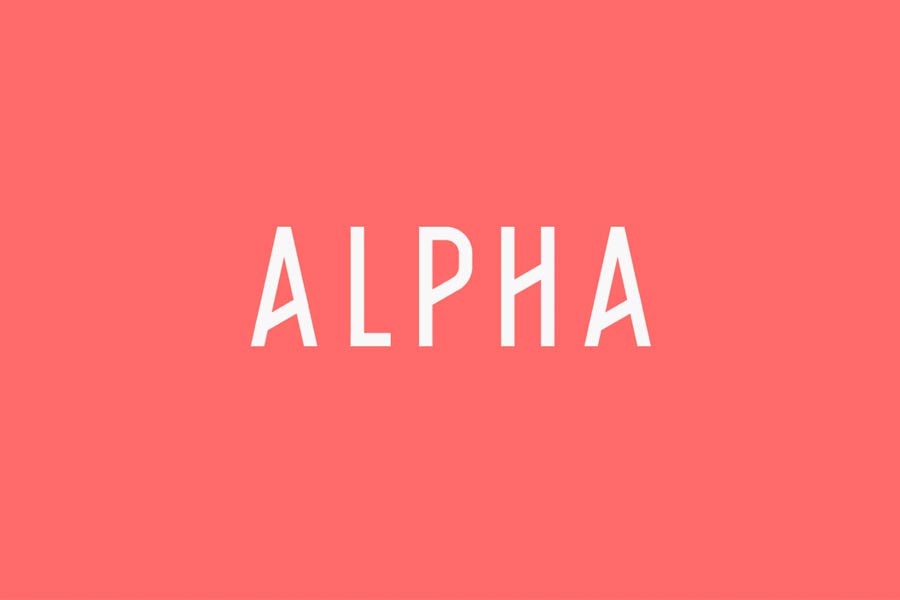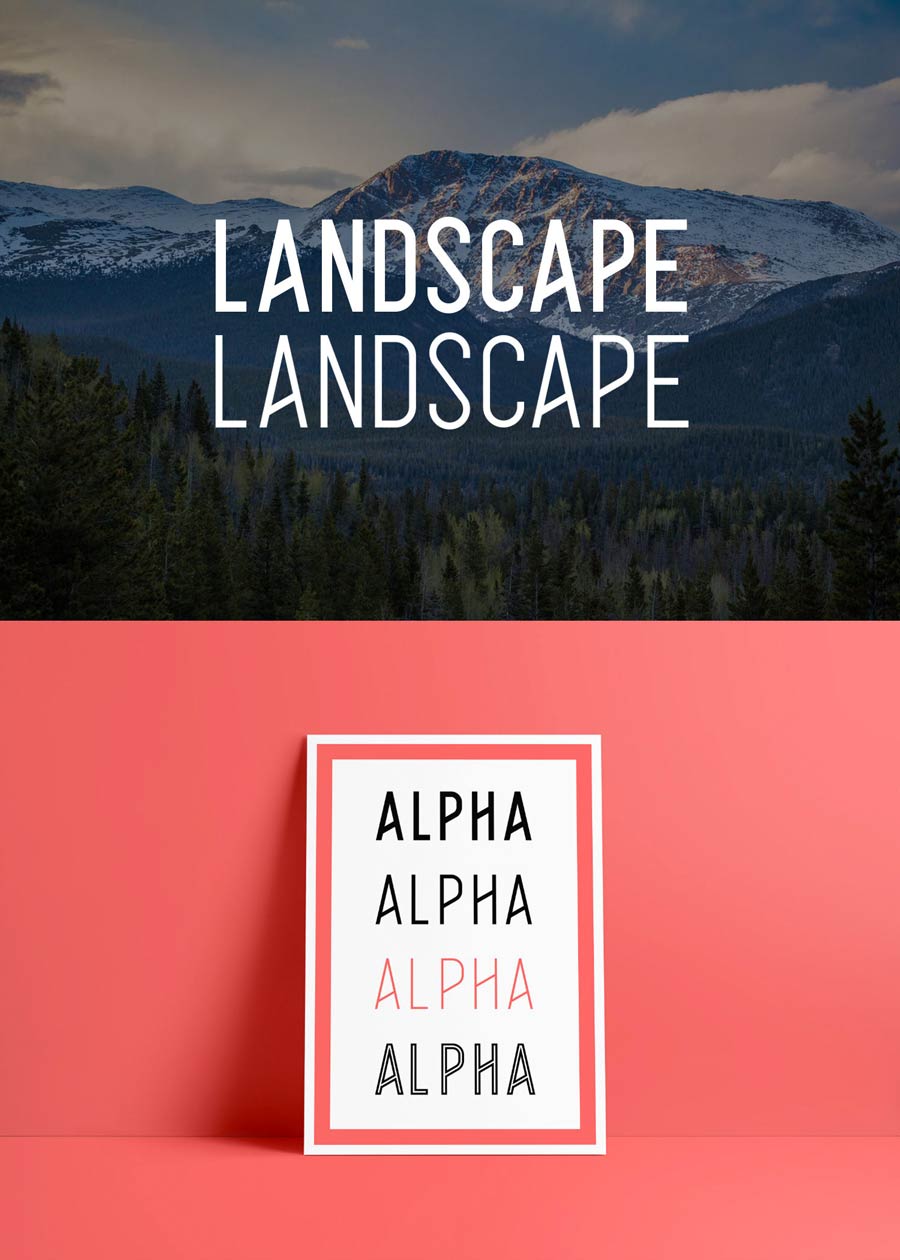
Alpha is a chic and stylish all-caps font free to download. It comes with 4 styles including a cool outline version of it. This font was designed by Callum Finn and it was his first font design project and have learnt a lot from it throughout the process.
Like mentioned earlier, it comes with uppercase letters only plus a period punctuation symbol. This font is perfect for minimalistic design styles.
- Designer: Callum Finn
- Styles: 4